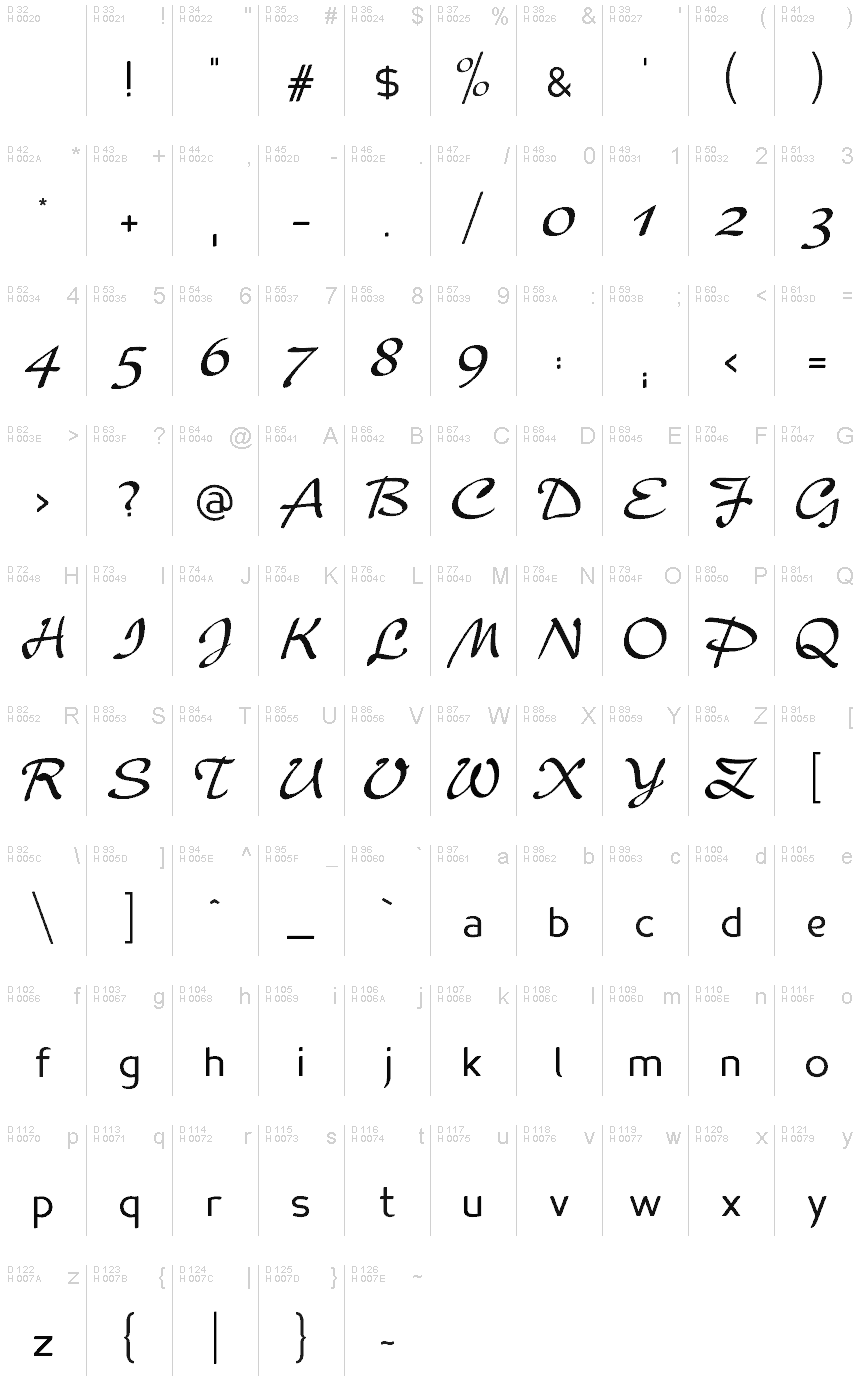
MadameFlacon
Madame Flacon is a captivating display font that effortlessly blends the elegance of handwritten calligraphy with the precision of traditional typeface design. Inspired by the iconic logo of Marionnaud Parfumeries, this font showcases a harmonious interplay of contrasting styles, creating a visually striking and memorable aesthetic. Each character is meticulously crafted, striking a perfect balance between readability and visual interest, even at small sizes.
Madame Flacon's unique character could lend itself to a diverse range of design applications, from luxury branding and packaging to editorial layouts and event materials. Its versatility and attention to detail make it a compelling choice for designers seeking to elevate their projects with a touch of elegance and sophistication.